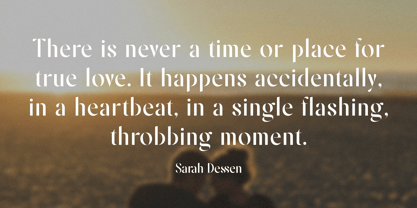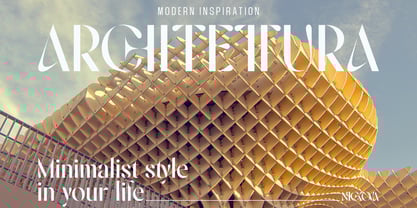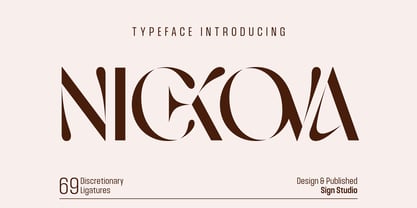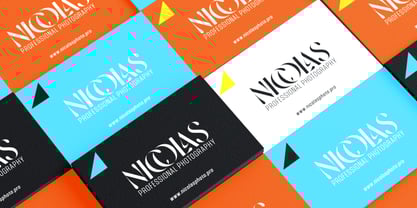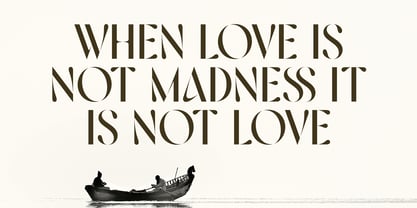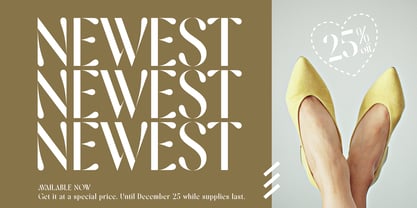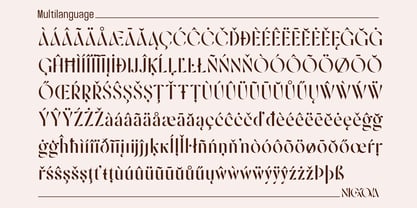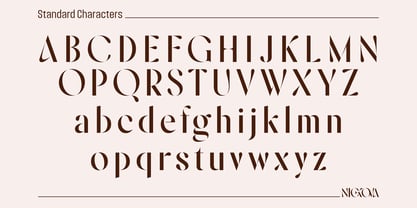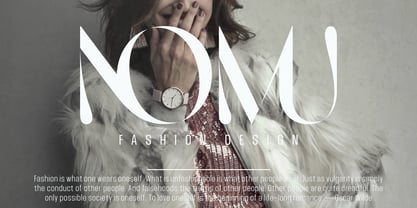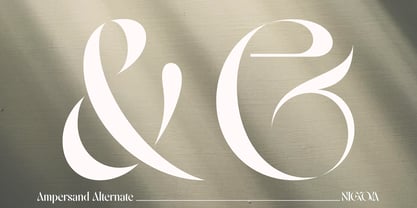
Nickova
by Sign Studio
The Nickova Font Family was designed by Sugi Yanto and published by Sign Studio. Nickova contains 1 styles. More about this family
Nickova is a stylish sans serif typeface that combines subtle elegance with a modern stencil feel. Perfect for display use, it is designed to catch the eye with its feminine and refined look - ideal for everything from fancy branding to eye-catching posters or packaging. This typeface combines timeless classic charm with a cool stencil touch, giving it a unique edge that stands out in any design.
Elegance with a Classic Touch - With its sleek lines and sophisticated curves, Nickova adds a touch of class to your projects, making it ideal for high-end designs. OpenType features: there are standard ligatures as well as discretionary ligatures. With 69 discretionary ligatures, you can add more artistic touches to your typefaces and give your designs a unique look and plenty of options to play with.
Whether you are working on a print or digital project, Nickova is here to make your designs more elegant and attractive. It is the perfect and versatile typeface to add a classic touch and still stand out in a modern way.